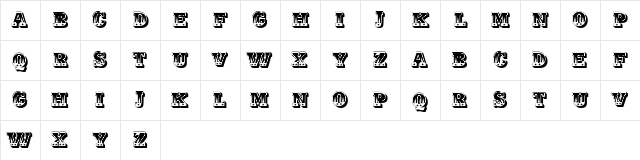
Justa Regular
Design Context for Justa
Justa is a composed and adaptable typeface that performs quietly and consistently across a wide range of design contexts.
Pro Tip: Use Justa in both headline and body roles to test its range before committing to a single application.